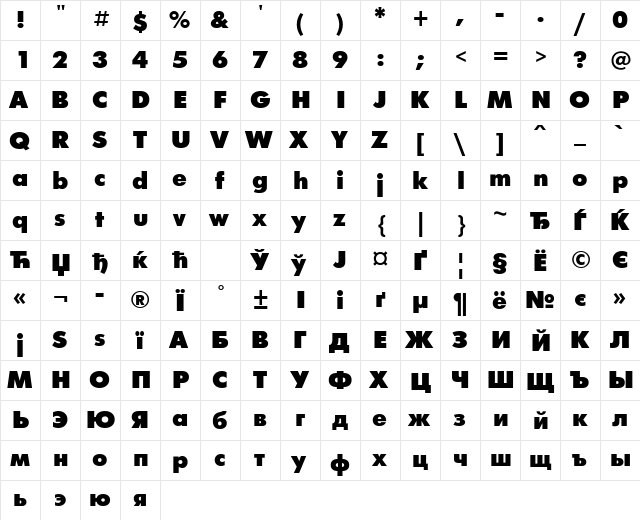
font195 Regular
Design Context for font195 Typeface
font195 takes a measured approach to typography — its balanced proportions and neutral character make it a reliable workhorse for both digital and print work.